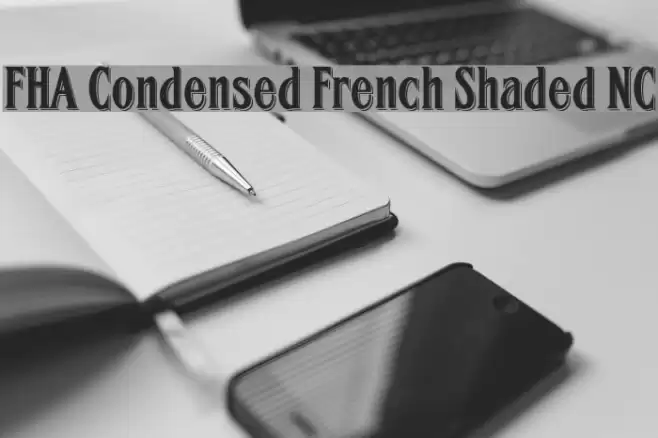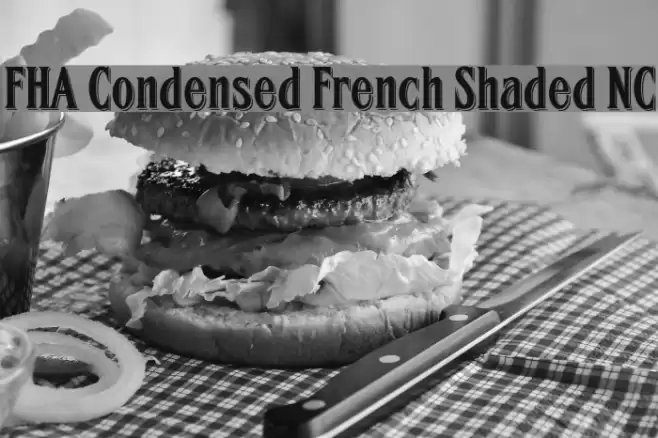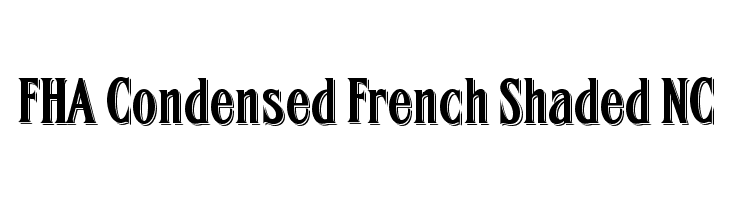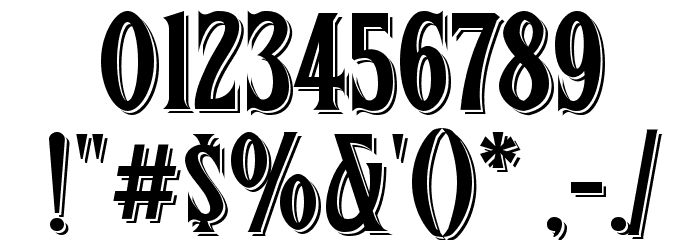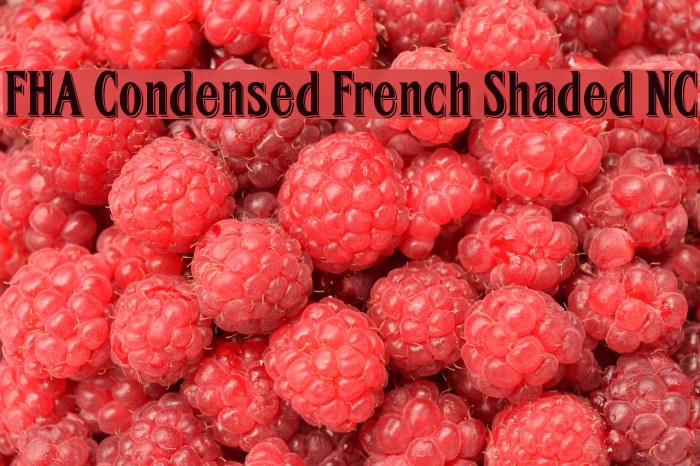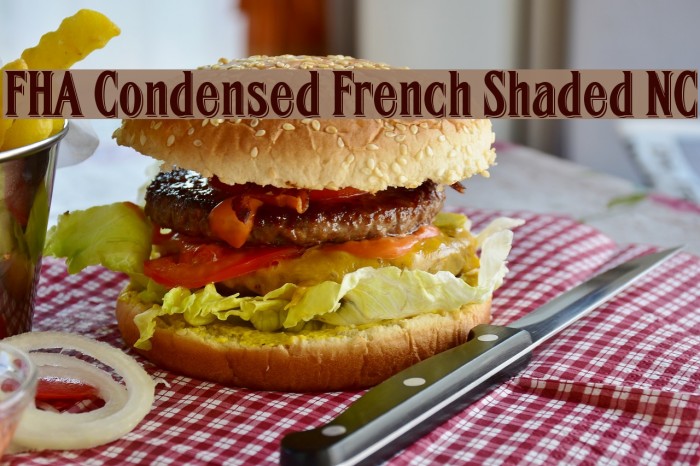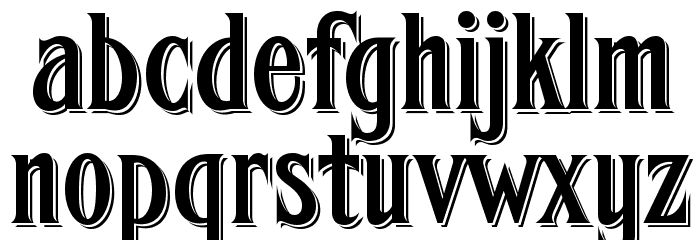
FHA Condensed French Shaded NC Font
FHA Condensed French Shaded NC Description
This font features a bold, condensed style with a distinctive shaded effect that adds depth and dimension to each character. The uppercase and lowercase letters maintain a consistent height, enhancing readability while preserving a unique aesthetic. The numerals and special characters are designed with the same attention to detail, making them suitable for various design applications. The shading gives the font a three-dimensional appearance, making it stand out in any context. The overall design is both classic and decorative, suitable for projects that require a touch of elegance and sophistication.
A bold, condensed font with a shaded, three-dimensional effect from Uncategorized fonts.
- Overall Style: Vintage, Decorative